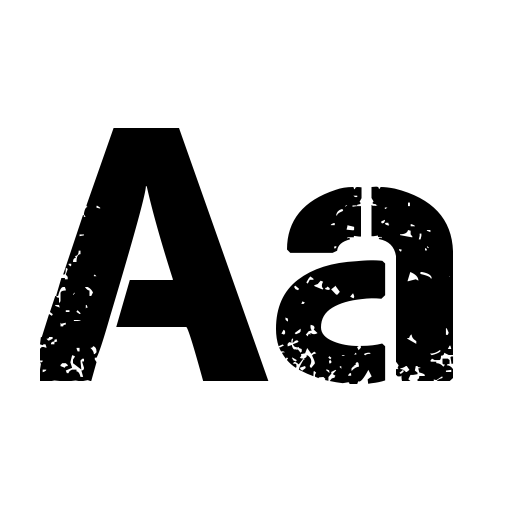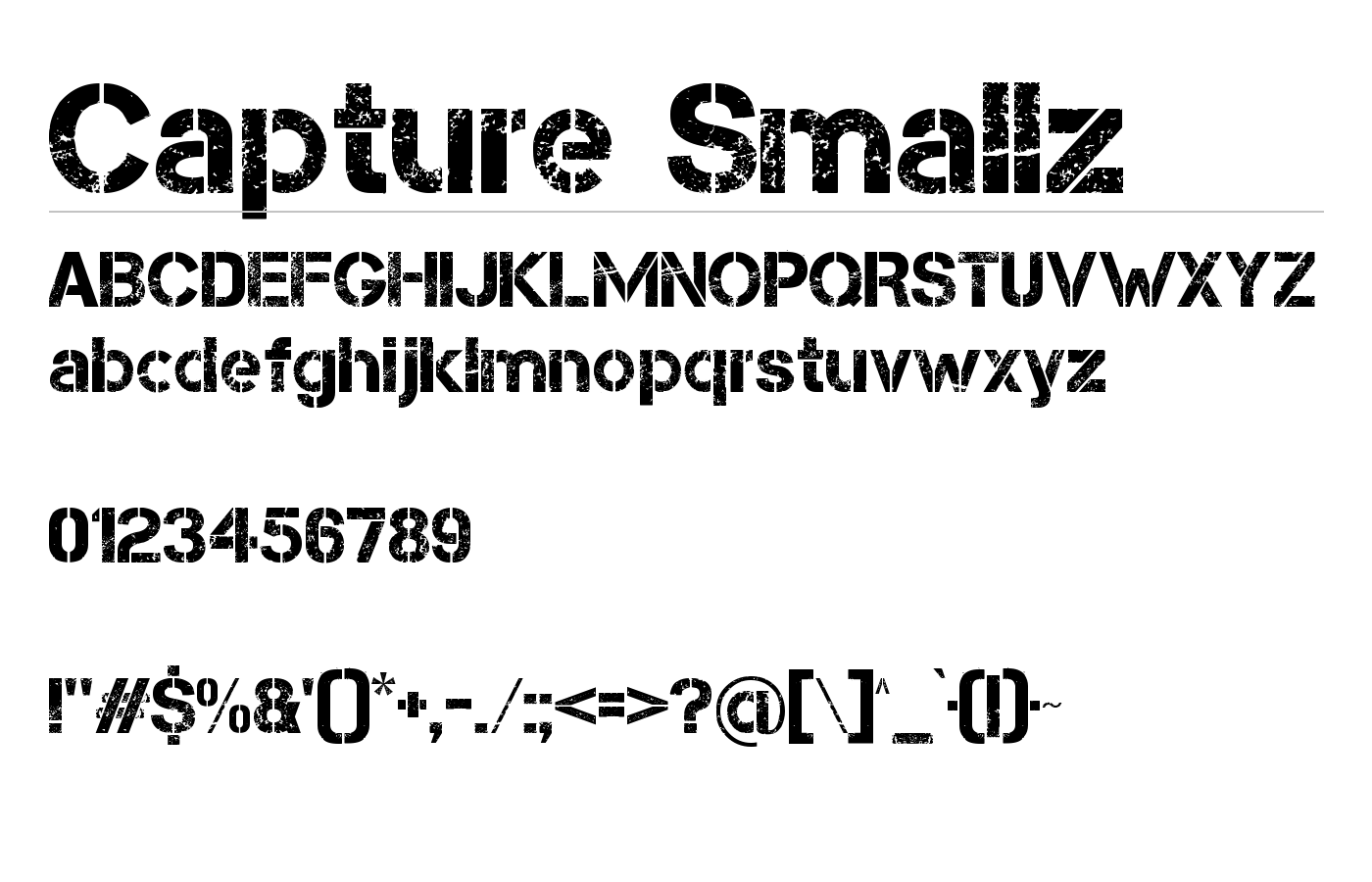
Capture Smallz is a bold, condensed sans serif font with a distressed, grunge texture that adds a rugged, urban feel. Its high contrast between thick and thin areas, combined with rough edges, makes it ideal for edgy, impactful designs like posters, streetwear branding, or music album covers. This font’s strong, worn aesthetic communicates energy and rebellion, making it a great choice for creative projects seeking a bold yet gritty vibe.
Capture Smallz Font
About Capture Smallz Font
| Font family | Capture Smallz Font |